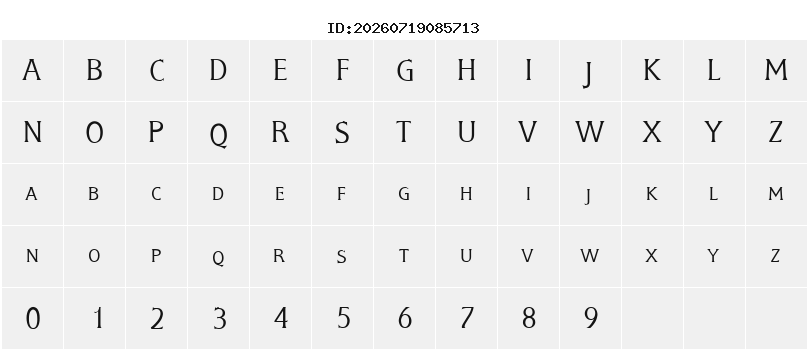
Colton Small Capitals Preview
• Font Name: Colton Small Capitals
• Full Font Name: Colton Small Capitals
About Colton Small Capitals.ttf
Colton Small Capitals.ttf is a modern, elegant sans-serif font designed for ultimate readability and visual harmony. Perfect for branding, headlines, web design, and print materials.